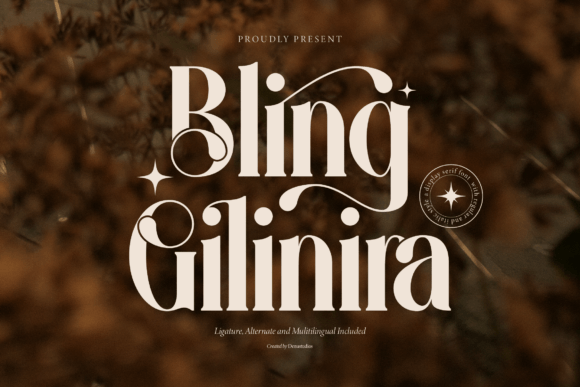
Introducing Bling Gilinira Font: Elevate Your Designs with Elegance and Sophistication
In the world of typography, fonts play a crucial role in conveying the message and aesthetic of a brand, product, or creative project. Among the myriad of fonts available, Bling Gilinira stands out as a stylish display serif font that embodies elegance, sharp edges, and a modern appeal. Designed to make bold statements in titles, logos, and posters, Bling Gilinira is the perfect choice for designers and businesses looking to elevate their visual identity.
What Makes Bling Gilinira Unique?
Bling Gilinira is not just another serif font. Its uniqueness lies in its elegant and sharp edges, which provide a sophisticated yet modern look. This font is meticulously crafted to ensure that every letter and character exudes luxury and refinement, making it ideal for projects where making a statement is paramount.
- Elegant and Sharp Edges: The defining feature of Bling Gilinira is its elegant and sharp edges. These not only give the font a luxurious feel but also ensure that it stands out in any design.
- Sophisticated yet Modern: Bling Gilinira strikes the perfect balance between sophistication and modernity. Its design is rooted in classic serif typography but infused with contemporary elements that make it highly versatile.
- Perfect for Bold Statements: Whether it’s a title, logo, or poster, Bling Gilinira is designed to make bold statements. Its presence in any design immediately elevates the visual appeal and communicates a sense of luxury and elegance.
Applications of Bling Gilinira Font
The versatility of Bling Gilinira makes it suitable for a wide range of applications. Here are some of the key areas where this font truly shines:
- Logos and Branding: For businesses looking to establish a luxurious and sophisticated brand identity, Bling Gilinira can be a game-changer. Its unique style can help a brand stand out in a crowded market.
- Posters and Flyers: When it comes to creating eye-catching posters and flyers, the font plays a crucial role. Bling Gilinira, with its elegant and sharp edges, is perfect for headlines and titles that need to grab attention.
- Titles and Headings: In editorial design, such as magazines, newspapers, and digital publications, Bling Gilinira can add a touch of elegance to titles and headings, setting the tone for the content.
- Packaging Design: For luxury products, packaging is as important as the product itself. Bling Gilinira can be used to create stunning packaging designs that reflect the luxury and quality of the product.
Why Choose Bling Gilinira?
In a world where design trends are constantly evolving, choosing a font that stands the test of time is crucial. Here are some reasons why Bling Gilinira should be your go-to font for your next project:
- Timeless Elegance: Unlike trendy fonts that may become outdated quickly, Bling Gilinira boasts a timeless elegance that will keep your designs looking sophisticated for years to come.
- Versatility: This font is highly versatile and can be used across various design projects, from branding and advertising to editorial and packaging design.
- Attention-Grabbing: In a sea of generic fonts, Bling Gilinira is sure to grab attention. Its unique style and elegant sharp edges make it a standout choice for any design.
- Easy to Read: Despite its decorative nature, Bling Gilinira remains highly legible, making it perfect for use in titles and headings where both style and clarity are essential.
How to Use Bling Gilinira Effectively
To get the most out of Bling Gilinira, it’s essential to use it effectively. Here are some tips on how to incorporate this beautiful font into your designs:
- Pair with Complementary Fonts: For optimal results, pair Bling Gilinira with complementary fonts that enhance its elegance. A simple sans-serif font for body text can create a beautiful contrast.
- Use for Headlines and Titles: Reserve Bling Gilinira for headlines and titles where its impact can be maximized. For body text, opt for a more straightforward font to maintain readability.
- Experiment with Colors: Bling Gilinira looks stunning in metallic colors, gradients, or even bold solid colors. Experiment with different color schemes to find the one that best suits your design.
- Consider the Context: Ensure that the use of Bling Gilinira aligns with the overall theme and message of your project. This font is ideal for luxury brands, high-end products, and sophisticated designs.
Bling Gilinira is more than just a font; it’s a design statement. With its elegant and sharp edges, it offers a sophisticated yet modern look that’s perfect for making bold statements in titles, logos, and posters. Its versatility, timeless elegance, and attention-grabbing style make it an excellent choice for designers and businesses looking to elevate their visual identity. By incorporating Bling Gilinira into your designs, you’re not just choosing a font; you’re making a statement of luxury, elegance, and sophistication.